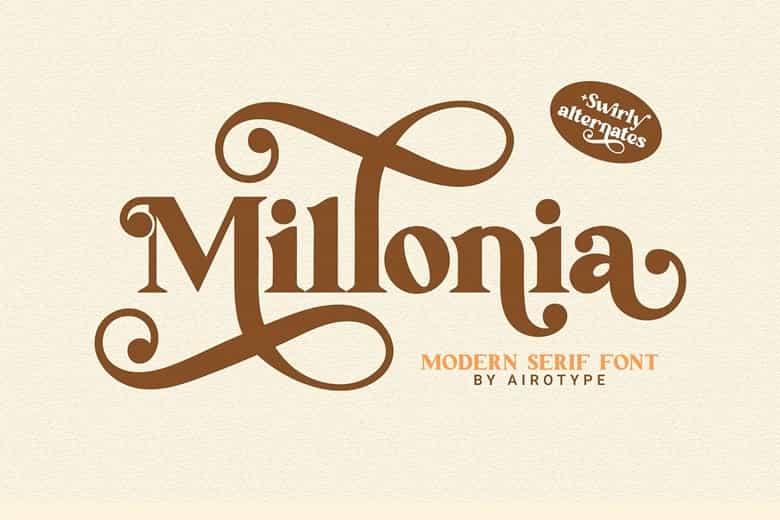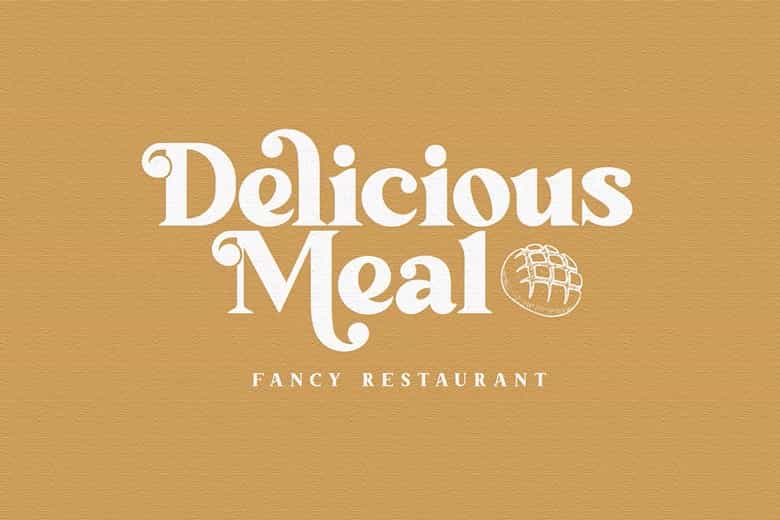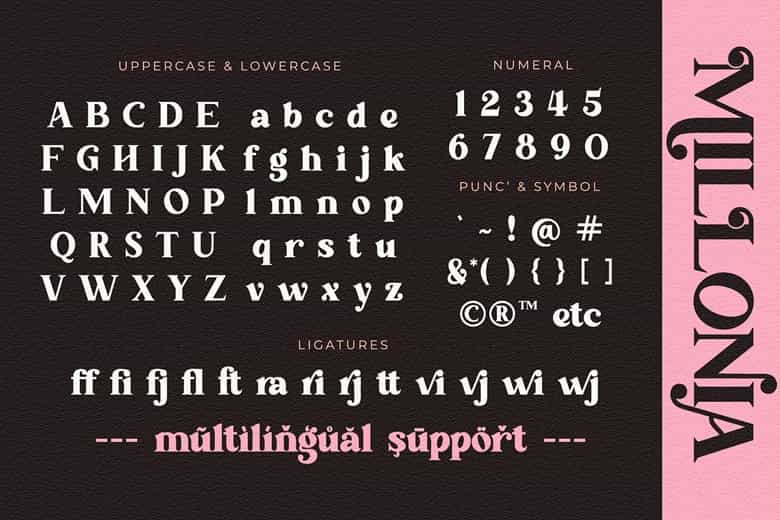
Millonia is an elegant and modern serif typeface that looks nice and stylish. It had both a modern and old-fashioned feel to it. Millonia has extra glyphs to help crafters have more simple letters and shapes to use when making designs. Swirly extra glyphs will help the font look nice and stylish.